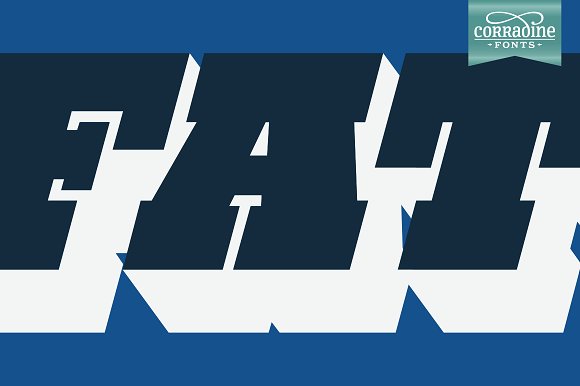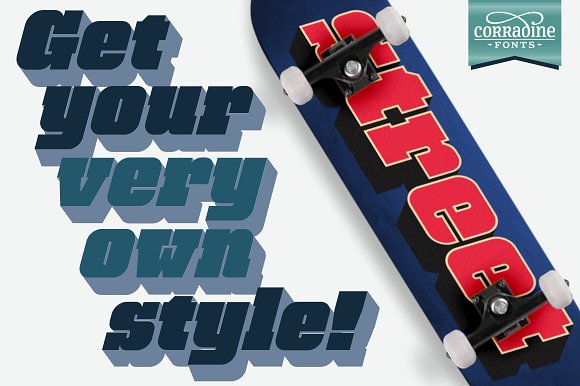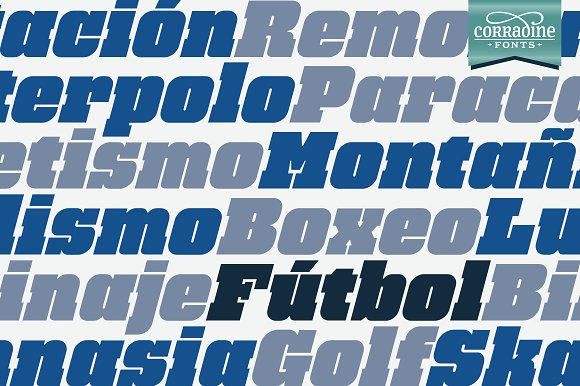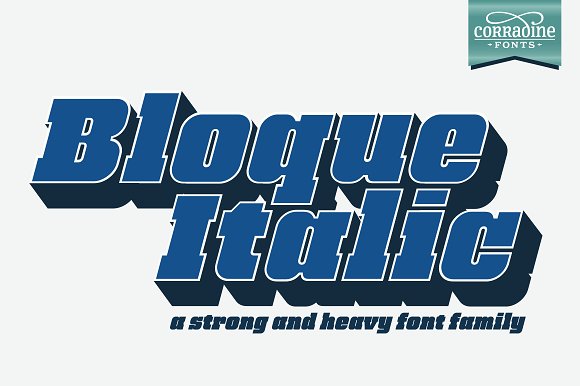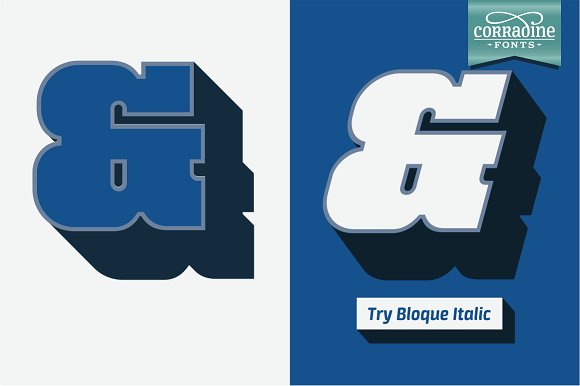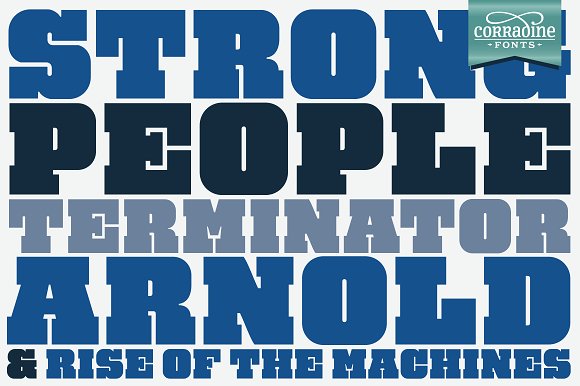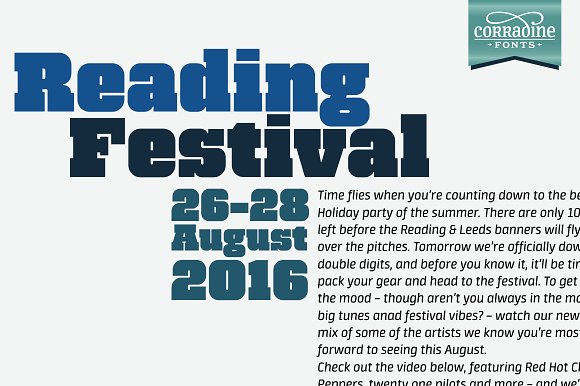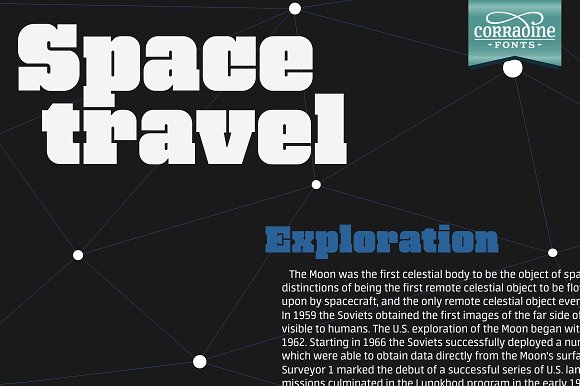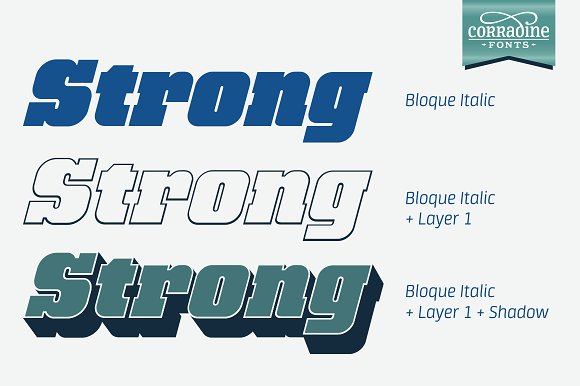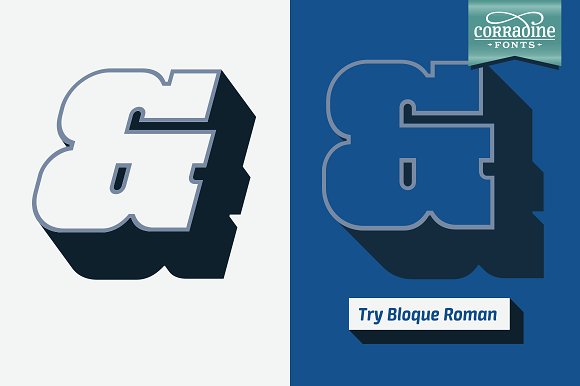
Bloque Family
Bloque Family: A Versatile Heavy Slab Serif Font Collection
Bloque Family is a robust and distinctive slab serif font collection that offers designers a powerful tool for creating impactful typography. This font family combines the boldness of heavy slab serifs with creative layering options, making it suitable for a wide range of design projects that require strong visual presence.
Key Features of Bloque Family
• Heavy Slab Design: Features thick, rectangular serifs and bold letterforms for maximum impact
• Three-Layer System: Includes base, inline, and shadow versions for creative combinations
• Color Versatility: Allows for various color combinations using the different layers
• Strong Visual Presence: Ideal for designs that need to command attention
Ideal Uses for Bloque Family
Bloque Family’s unique characteristics make it particularly well-suited for:
• Bold headlines and titles in print and digital media
• Logo design and branding projects requiring a strong typographic element
• Poster and advertisement designs
• Book covers and album artwork
• Environmental graphics and signage
Comparison with Other Slab Serif Fonts
While Bloque Family shares characteristics with other slab serifs like Tecnica Slab Family, its layering system and heavy weight set it apart. Unlike more traditional slab serifs such as Osgood Slab, Bloque Family offers more creative possibilities with its inline and shadow versions.
When incorporating Bloque Family into your designs, consider the following tips:
• Experiment with different color combinations using the three layers
• Use for headlines or short blocks of text to maximize its bold impact
• Consider the readability at smaller sizes due to its heavy weight
• Pair with simpler sans-serif fonts for body text to create contrast
Bloque Family is an excellent choice for designers looking to add a powerful and versatile slab serif to their typographic toolkit. Its unique layering system and heavy weight make it stand out in the world of typography. Whether you’re working on logo designs, creating eye-catching poster designs, or developing branding for projects that require a strong visual presence, Bloque Family offers the perfect blend of impact and creativity.
Explore how Bloque Family can bring a bold and layered aesthetic to your design projects. From striking headlines to multi-colored logotypes, this font family provides the tools to create impactful and memorable typography that stands out in various design contexts.